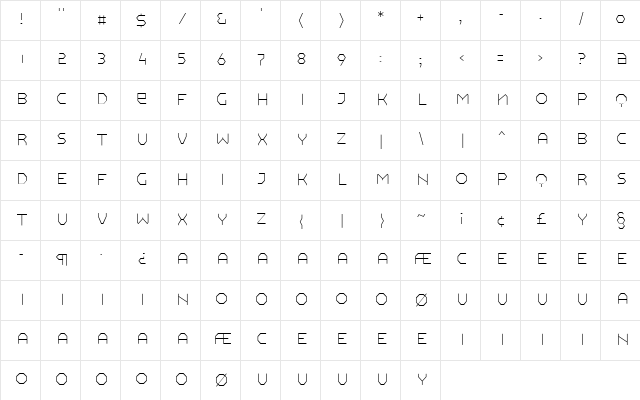
Pullman ExtraLight
| Foundry | Factor Design: Johannes Erler, . Published by FontShop International. FontFont Release |
Design Context for Pullman Typeface
Pullman takes a measured approach to typography — its balanced proportions and neutral character make it a reliable workhorse for both digital and print work. The delicate stroke weight brings airiness and refinement to layouts.